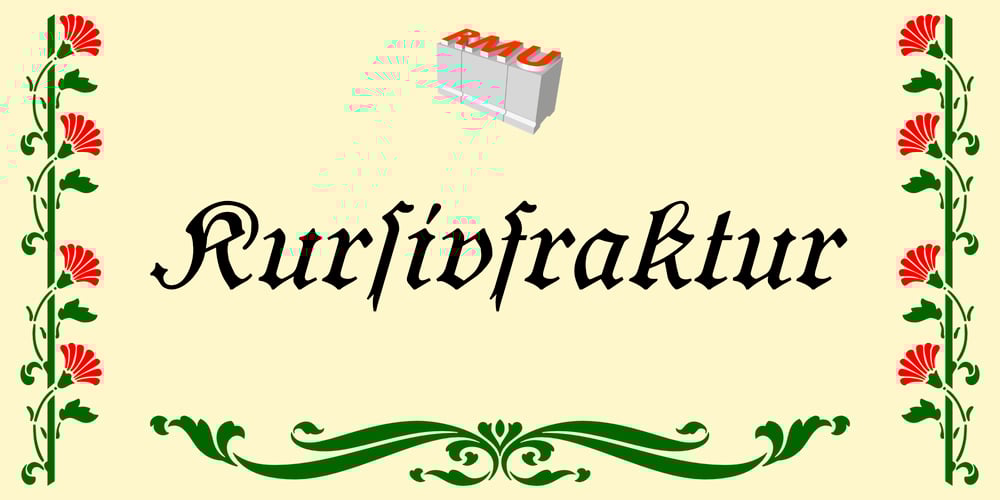
Kursivfraktur Font Family was designed by Ralph M. Unger and published by RMU. Kursivfraktur contains 1 styles and family package options. Inspired by Rudolf Engelhardt’s Journal-Kursiv, released by Ludwig Wagner, Leipzig, in 1913, Kursivfraktur was freshly drawn and redesigned, and comes as one of those rare beautiful italic blackletter fonts.This font contains the letter long s which can be reached in two ways. Either you use the OT feature historical forms, or you type the integral sign [ ∫ ] on your keyboard. There are two graphic elements implemented, a corner element and a straight element for framing. The corner element lies on the Product sign [ ∏ ], the straight element you will find on the pi-key [ π ].Furthermore it is recommended to activate the discretionary ligatures OT feature.